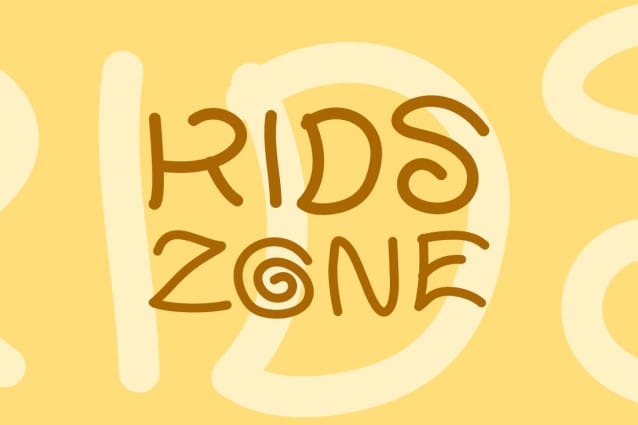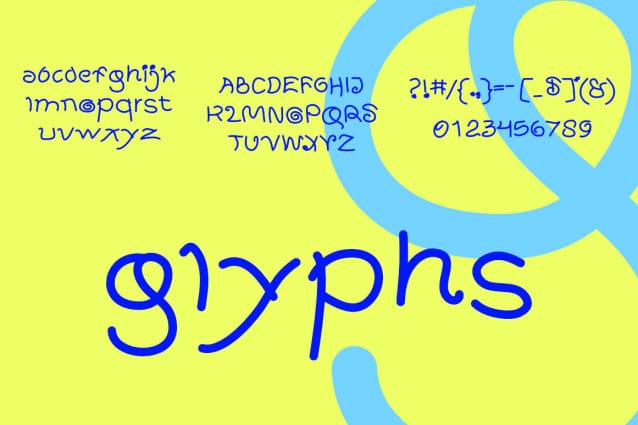
Fear Fluid Font
Fear Fluid Font, it would be a perfect choice to design posters, affiches, logos, t-shirt and magazine prints, eye-pleasing typographic designs and more.